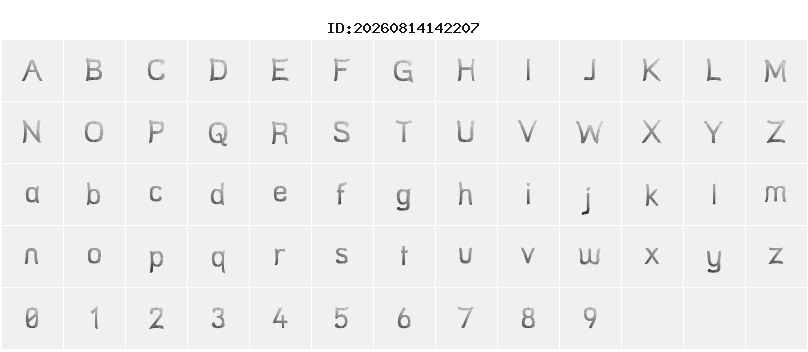
• Font Name: Street
• Full Font Name: Street Net
About Street.ttf
Street.ttf is a modern, elegant sans-serif font designed for ultimate readability and visual harmony. Perfect for branding, headlines, web design, and print materials.